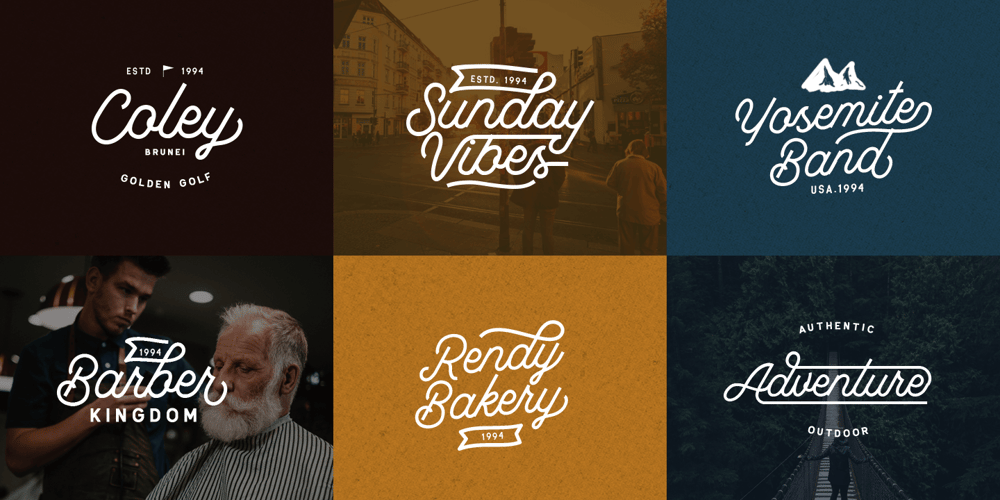
Madgue Font Family was designed by Sarid Ezra and published by Sarid Ezra. Madgue contains 2 styles and family package options. Madgue is unique monoline font. You can use it many cases, such as awesome logo and more. This font contains ligatures, many stylistic alternates and a separate swash weight. This font is also supports multiple languages.